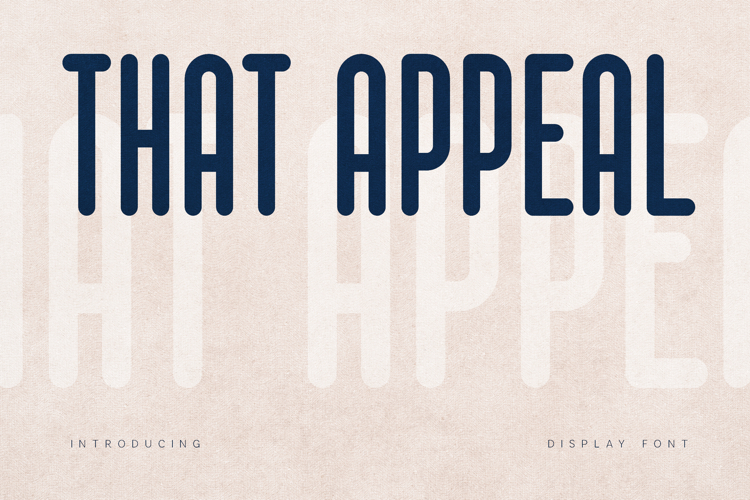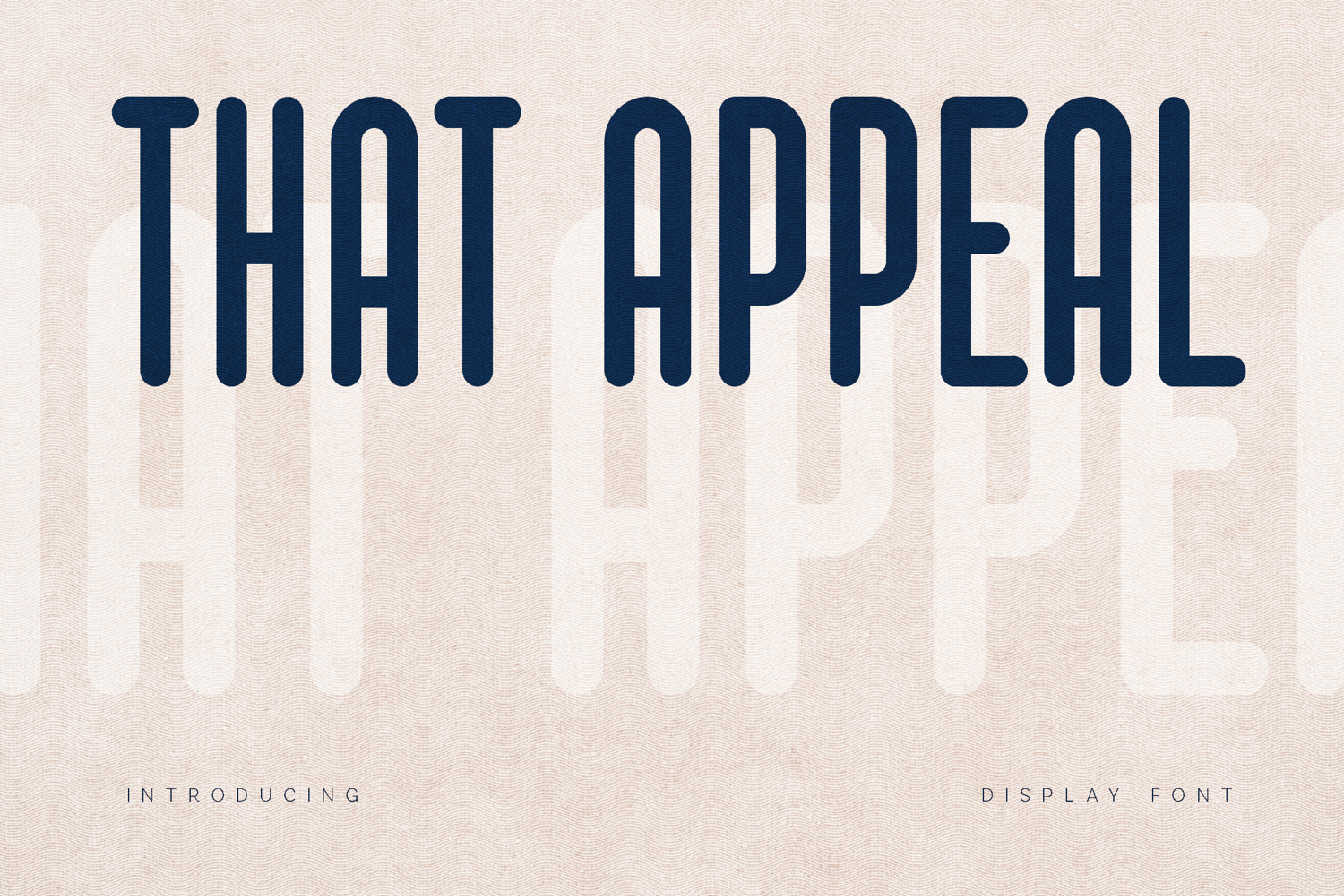
That Appeal Bold Condensed Display Font
That Appeal is a bold condensed display font designed to command attention.
With its tall structure, rounded terminals, and strong vertical rhythm, That Appeal delivers confident modern energy with subtle retro influence. It is crafted for designers who want bold presence without harsh edges — powerful yet approachable.
Its compact proportions make it perfect for impactful headlines, tight logo compositions, and strong visual branding systems.
Whether you’re designing streetwear, packaging, posters, or social media graphics, That Appeal creates instant character and memorability.
Perfect For:• Logo design
• Branding projects
• Poster layouts
• Apparel & merchandise
• Streetwear graphics
• Packaging design
• Social media content
• Editorial headlines
Carefully spaced and optimized for display use in both print and digital applications.
That Appeal is bold, modern, and built to stand out.